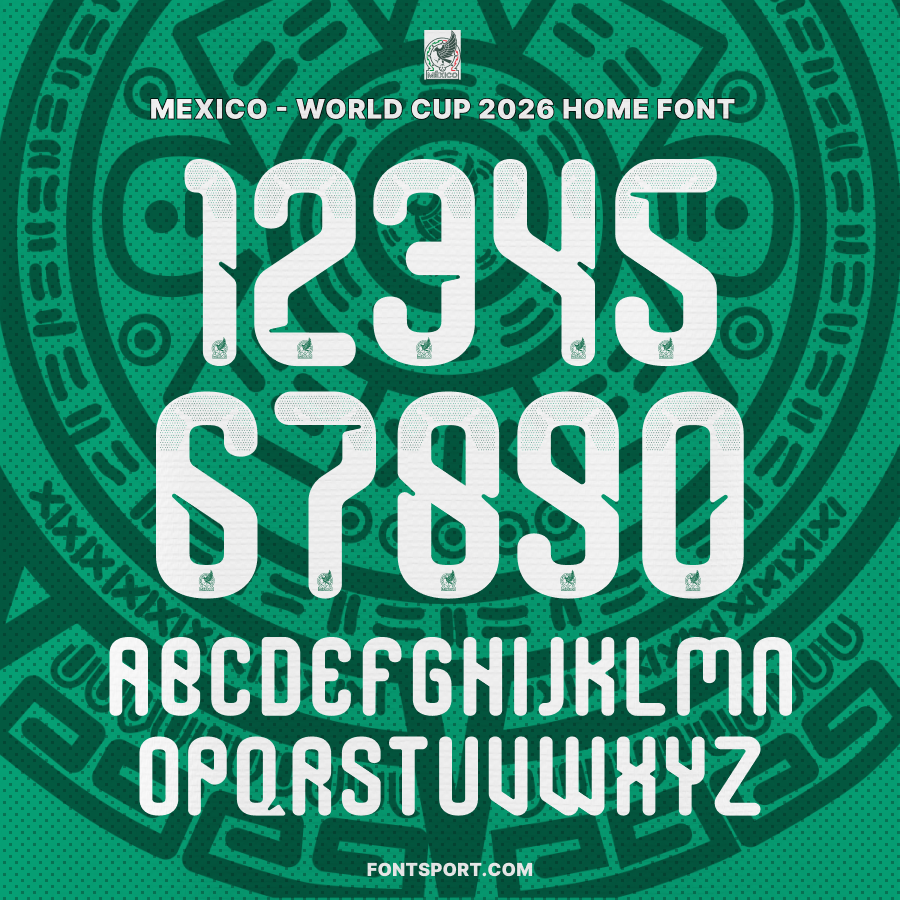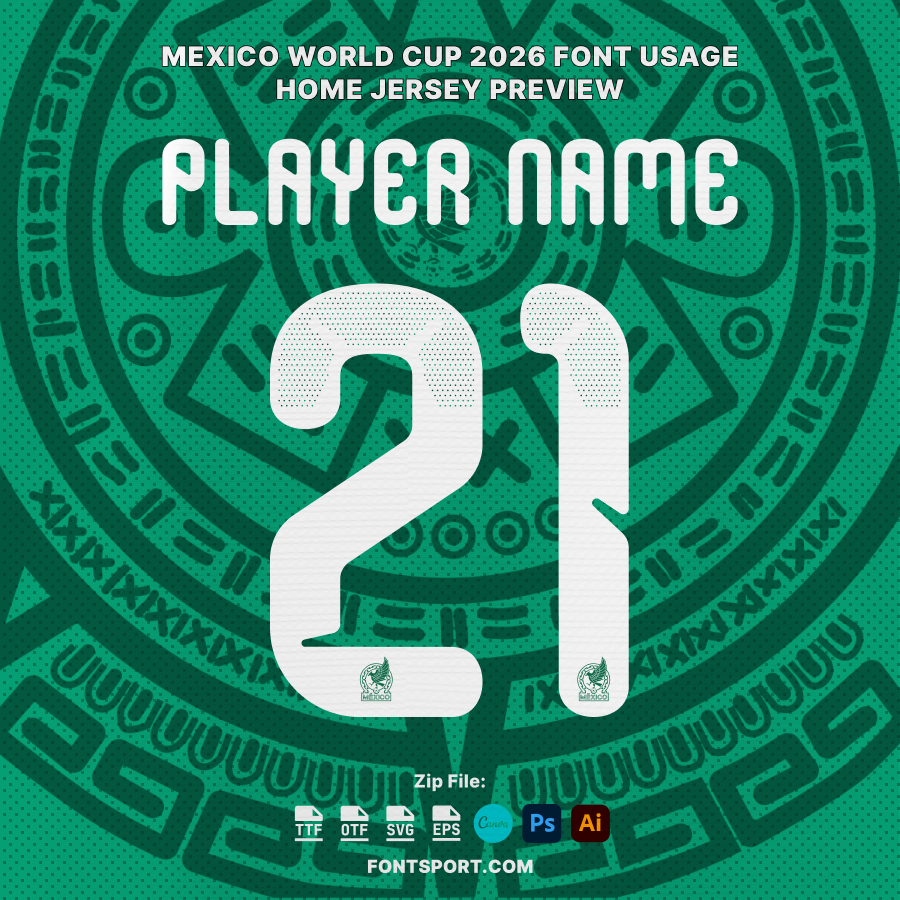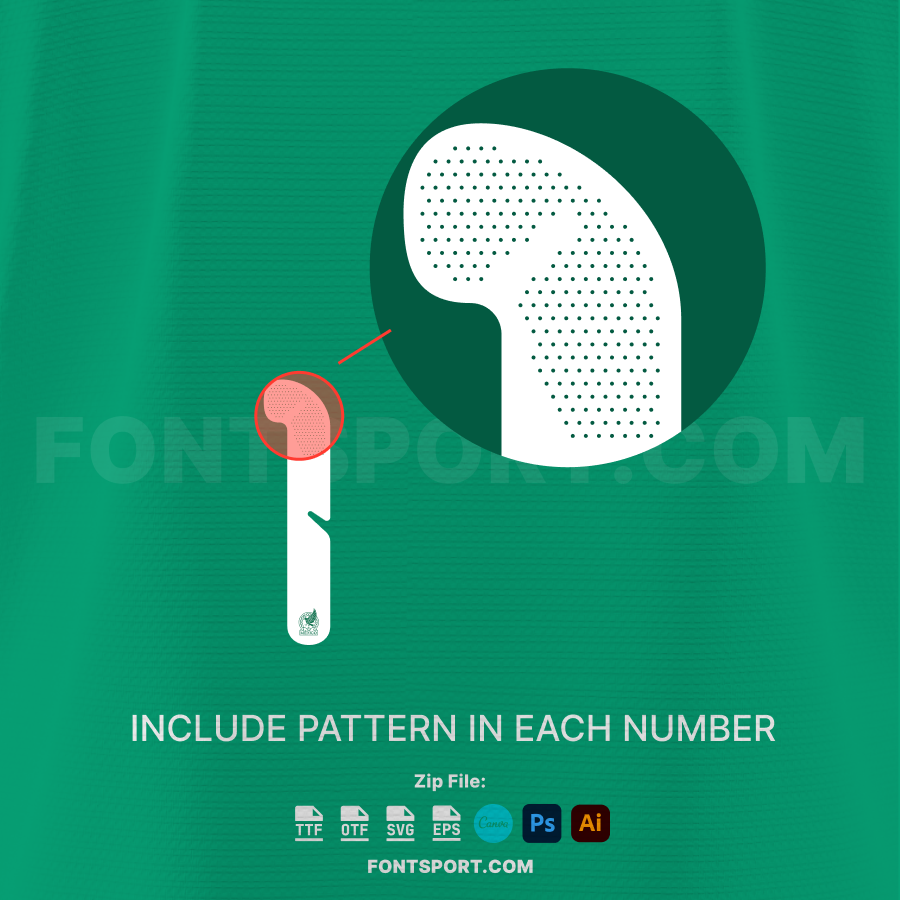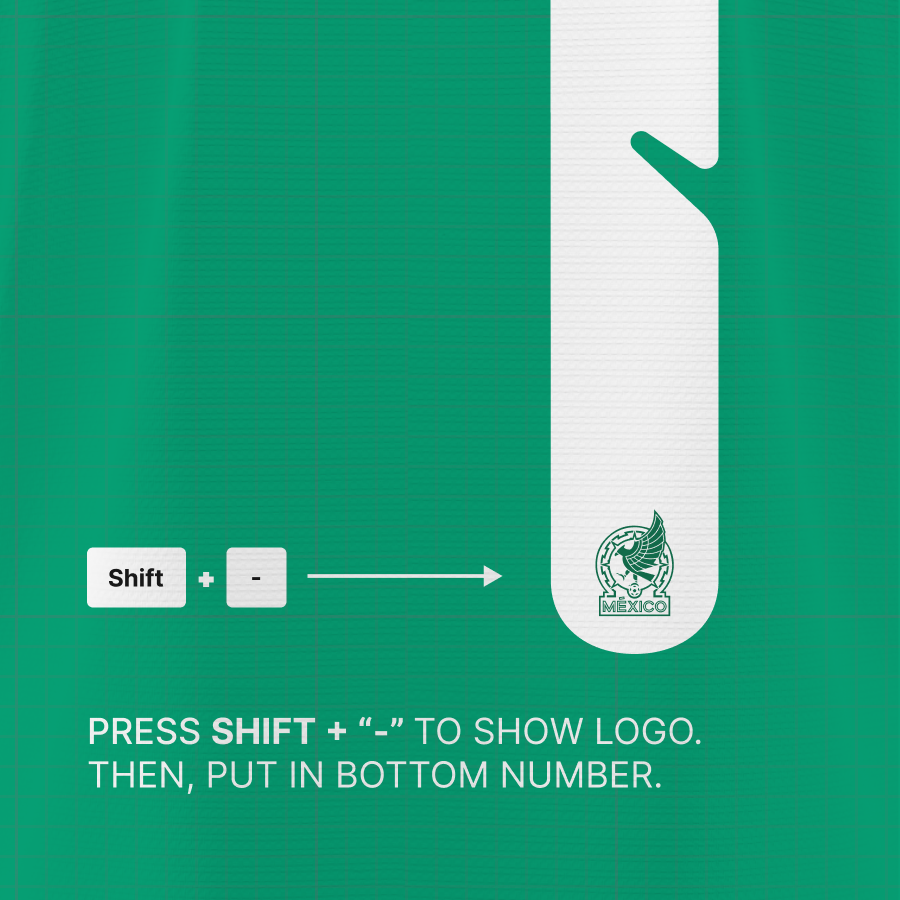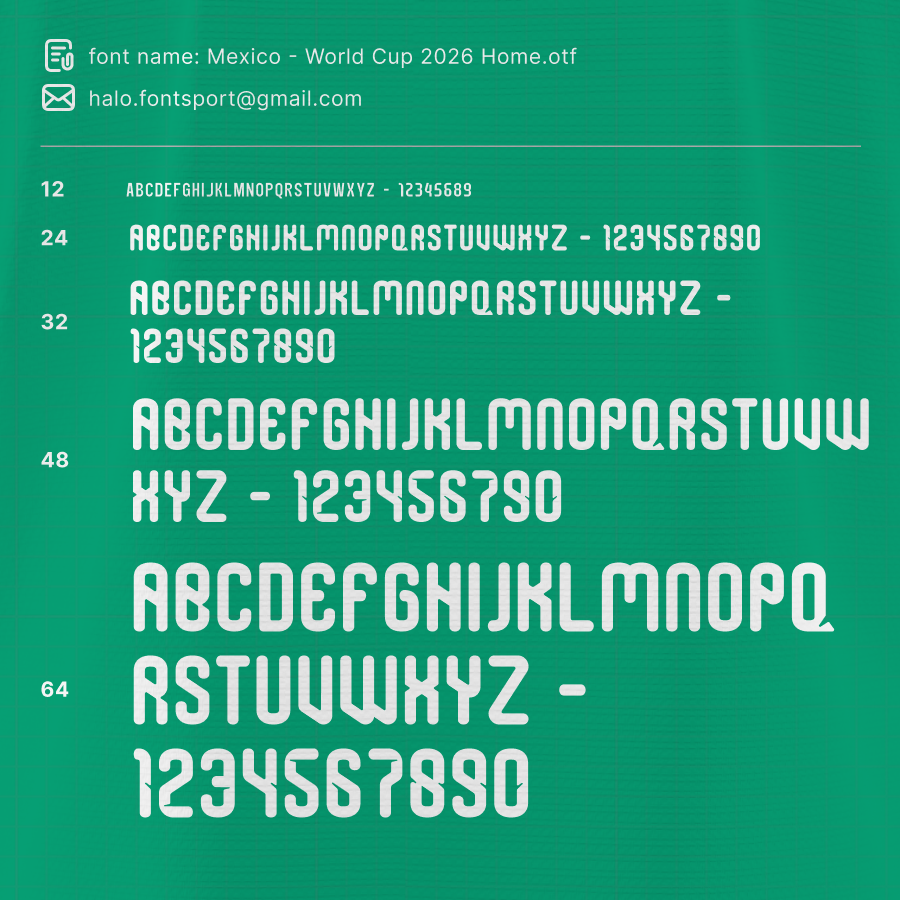
Mexico 2026 World Cup Home Font Kit – National Team Typeface
The Mexico 2026 World Cup Home Font Kit represents a bold evolution of the national identity. Inspired by Mexico’s deep cultural roots and modern football flair, this font was worn proudly by El Tri during their FIFA World Cup 2026 campaign.
Featuring clean geometric cuts, subtle Aztec-inspired angles, and perfect legibility, this typeface captures both strength and heritage—making it ideal for jersey mockups, posters, and football design projects.
• Numbers 0–9 & full uppercase alphabet A–Z in Mexico 2026 authentic style
• National crest glyph for added authenticity
• Multilingual Latin support with diacritics
This font kit embodies that same identity—blending heritage, geometry, and boldness into a timeless digital collectible for designers and football lovers alike.
Mexico 2026 World Cup Home Font full alphabet and numbers – official Mexico national team typeface featuring Aztec-inspired geometric design.